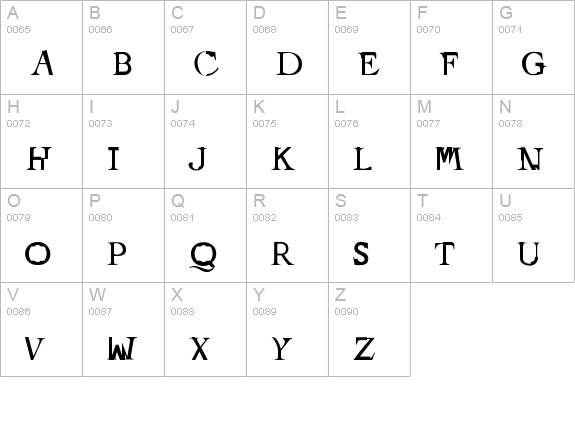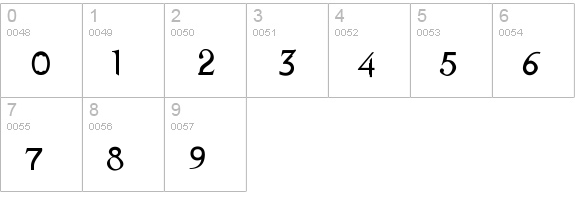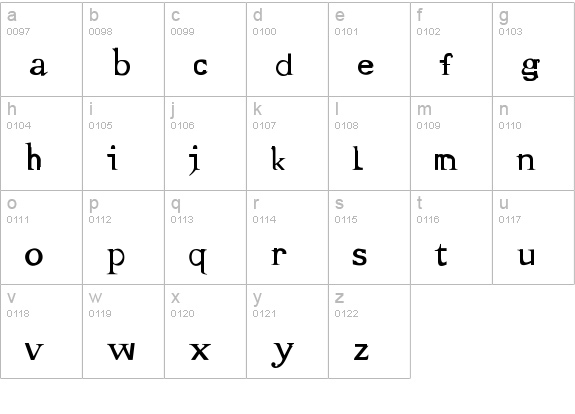
Hernia Font Details
Hernia font is a modern and stylish typeface that exudes sophistication and elegance. With its sleek lines and contemporary aesthetic, this font is perfect for a wide range of design projects, from branding to advertising to web design. The smooth curves and sharp edges of Hernia font create a unique and eye-catching look that is sure to make your text stand out. Best of all, Hernia font is completely free to download at FontsMarket.com. Whether you're a seasoned designer looking to add a fresh new font to your collection or a beginner searching for the perfect typeface for your next project, Hernia font is the ideal choice. Download it today and see for yourself how this exquisite font can elevate your designs to the next level.